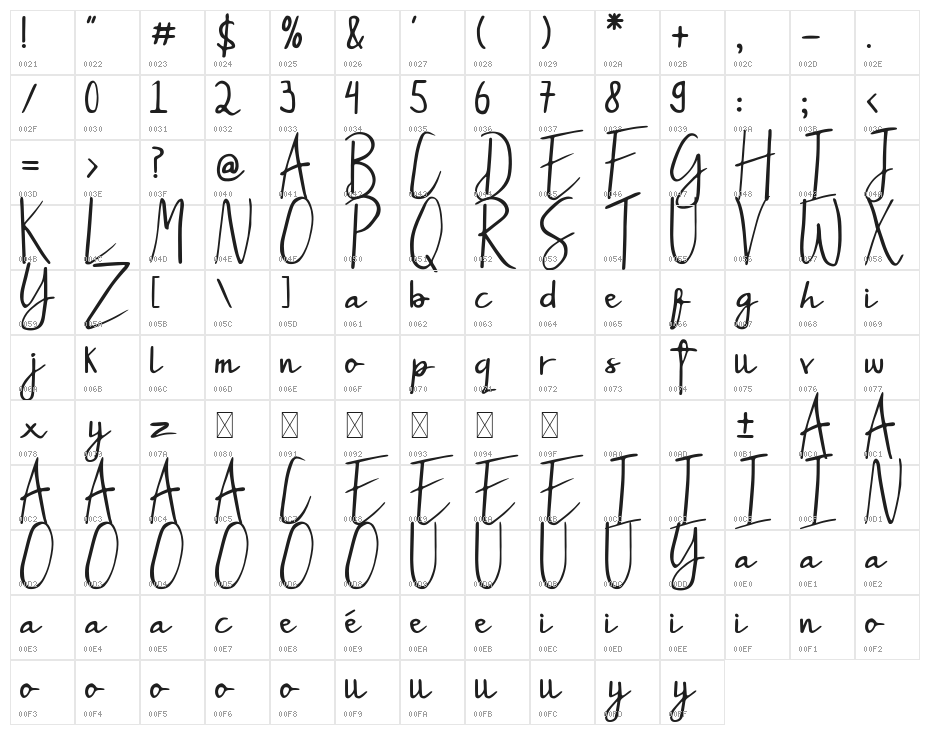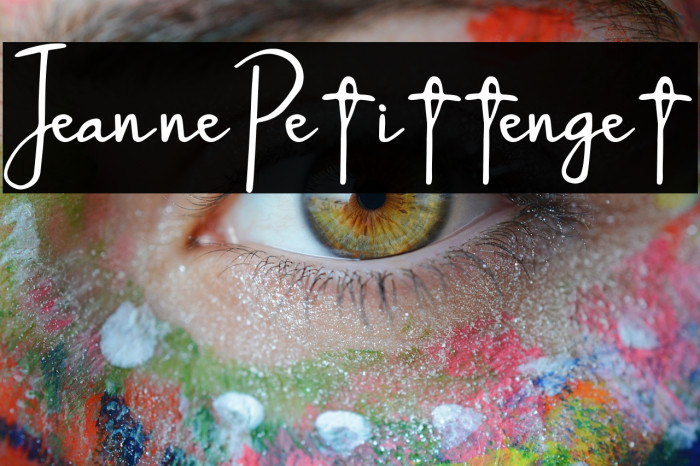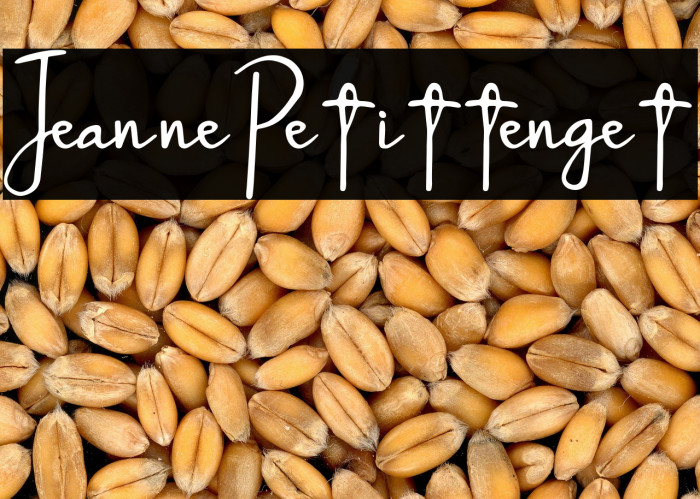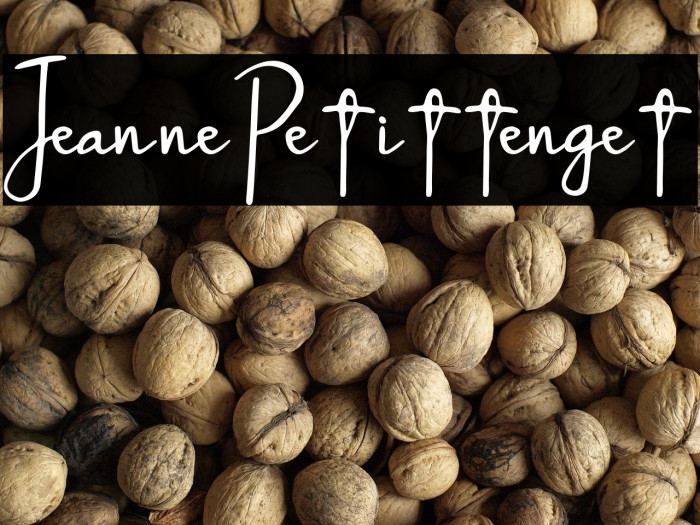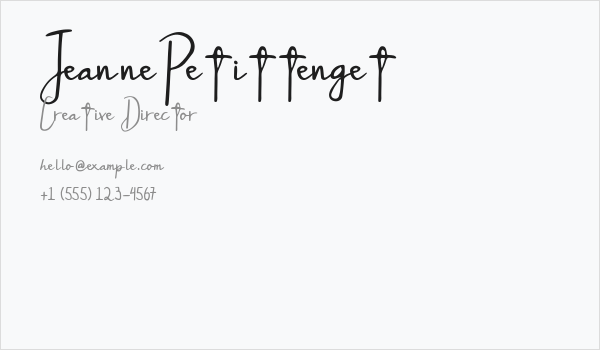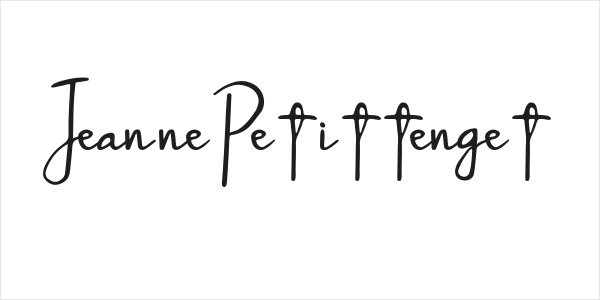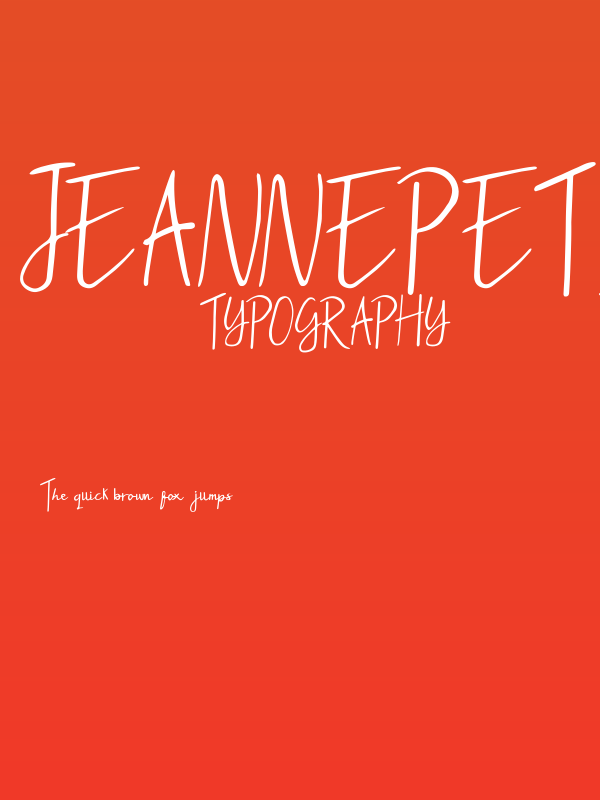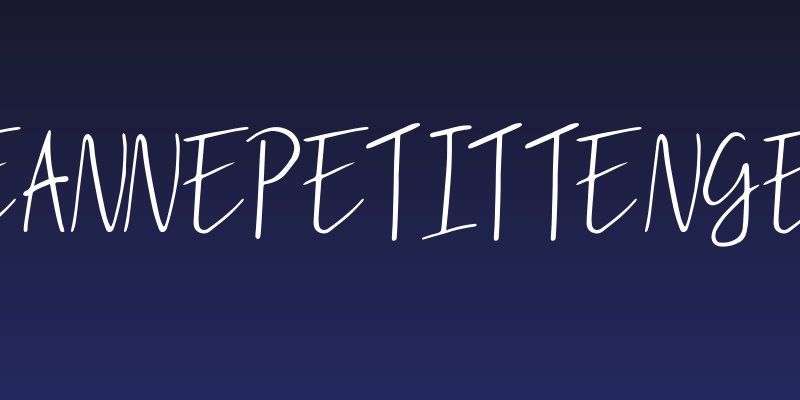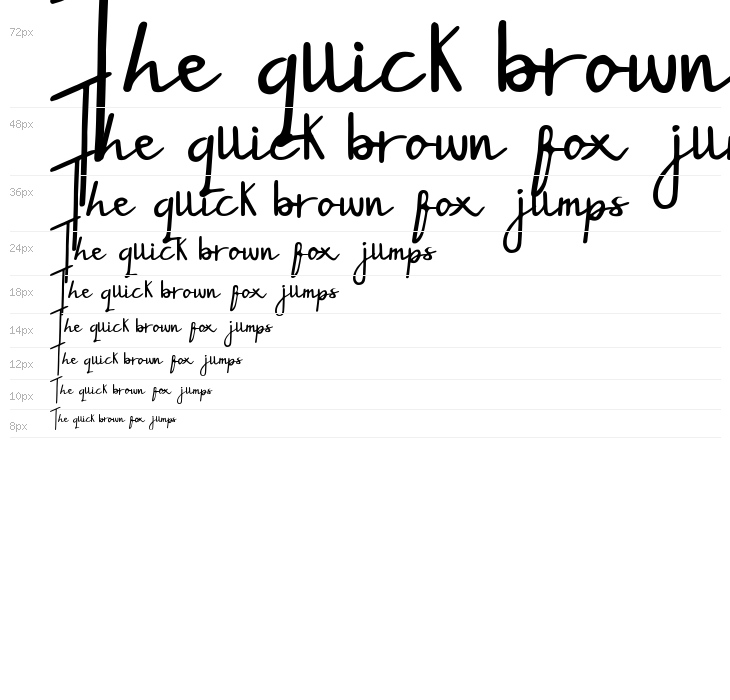
JeannePetittenget Font
JeannePetittenget Description
This font features a playful and casual handwritten style, characterized by its fluid and natural strokes. The uppercase letters are tall and slender, while the lowercase letters exhibit a more relaxed and flowing appearance. The numbers maintain the same playful style, ensuring consistency throughout. Special characters are included, adding versatility to the font. The overall design conveys a sense of informality and creativity, making it suitable for projects that require a personal touch.
Overall StyleCasual, Playful
Use CaseLogos, Invitations, Creative projects
Proposed ProjectsIdeal for greeting cards, personal branding, creative projects, and informal invitations.